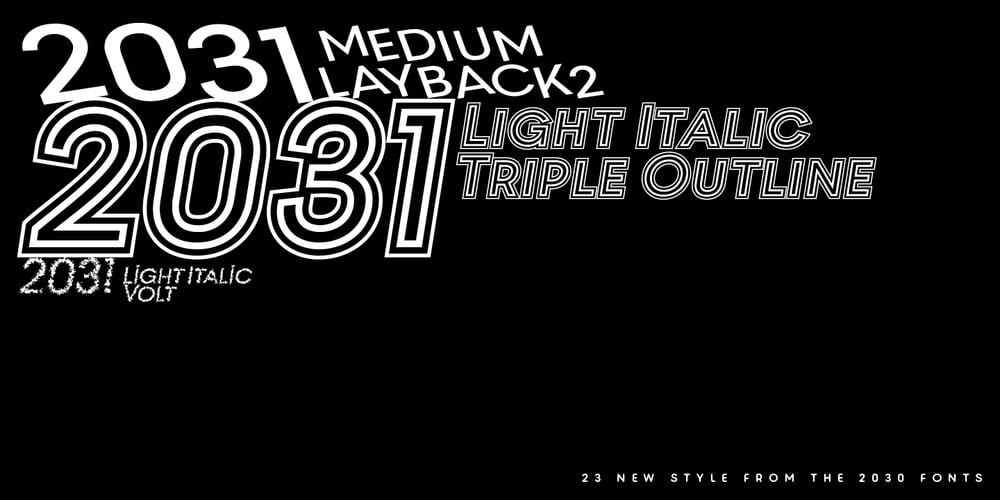
2031
2031 font
2031 Font Family was designed by Olivier Gardera and published by Noir Typo. 2031 contains 23 styles and family package options. The 2031 typeface is a toolbox made of fonts from the 2030 typeface. 3d, outlines, shadows and other graphic effects remix each style into a new postmodern typeface.